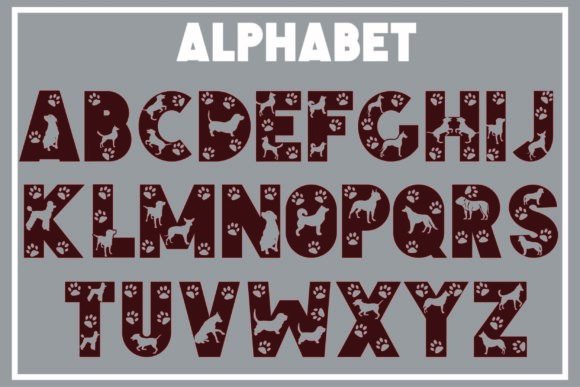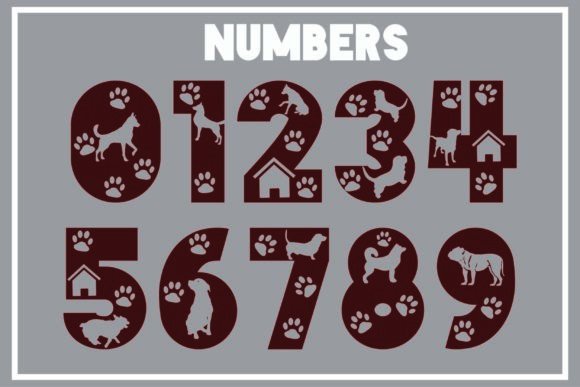
Unleash Creativity with Doggy Font: The Perfect Choice for Kids’ Projects
Are you a designer, crafter, or parent looking for a fun and playful font to add some excitement to your kids’ projects? Look no further than Doggy Font! This bold, cool, and fun decorative font is designed to bring a smile to everyone’s face, making it the perfect choice for children’s activities, school projects, and more.
What Makes Doggy Font So Special?
Doggy Font embodies playfulness and authenticity, making it an ideal choice for any project aimed at kids. Its unique and quirky design is sure to capture the imagination of young minds, adding a touch of personality to any project. Whether you’re creating a fun coloring book, a kids’ worksheet, or a playful poster, Doggy Font is the perfect companion to help bring your ideas to life.
Key Features of Doggy Font
- Bold and Fun Design: Doggy Font boasts a bold and fun design that’s sure to grab attention. Its thick lines and playful curves make it easy to read and fun to look at.
- Perfect for Kids: The font’s playful and child-friendly design makes it an ideal choice for kids’ projects, including activity sheets, posters, and school assignments.
- Highly Versatile: Doggy Font can be used for a wide range of projects, from digital designs to print materials, making it a great addition to any designer’s toolkit.
Ideas for Using Doggy Font
Doggy Font is a versatile font that can be used in a variety of creative projects. Here are a few ideas to get you started:
- Kids’ Worksheets: Add a playful touch to your kids’ worksheets with Doggy Font. Use it to create fun and engaging activity sheets, quizzes, and puzzles.
- Coloring Books: Create a fun and interactive coloring book using Doggy Font. The font’s bold design makes it perfect for headings and titles.
- Posters and Flyers: Use Doggy Font to create eye-catching posters and flyers for kids’ events, such as birthday parties, school plays, and sports events.
- Digital Designs: Add a playful touch to your digital designs, such as social media graphics, blog posts, and website headers, with Doggy Font.
Tips for Getting the Most Out of Doggy Font
To get the most out of Doggy Font, here are a few tips to keep in mind:
- Experiment with Sizes: Doggy Font looks great in a variety of sizes, from small headings to large titles. Experiment with different sizes to find the one that works best for your project.
- Pair it with Other Fonts: Doggy Font pairs well with other fonts, such as sans-serif fonts and script fonts. Experiment with different font combinations to find the one that works best for your project.
- Use it Consistently: Use Doggy Font consistently throughout your project to create a cohesive and playful look.
Doggy Font is a bold, cool, and fun decorative font that’s perfect for kids’ projects. Its playful and authentic design makes it an ideal choice for designers, crafters, and parents looking to add a touch of personality to their projects. With its versatility, ease of use, and bold design, Doggy Font is sure to become a favorite in your design toolkit. So why wait? Download Doggy Font today and start unleashing your creativity!